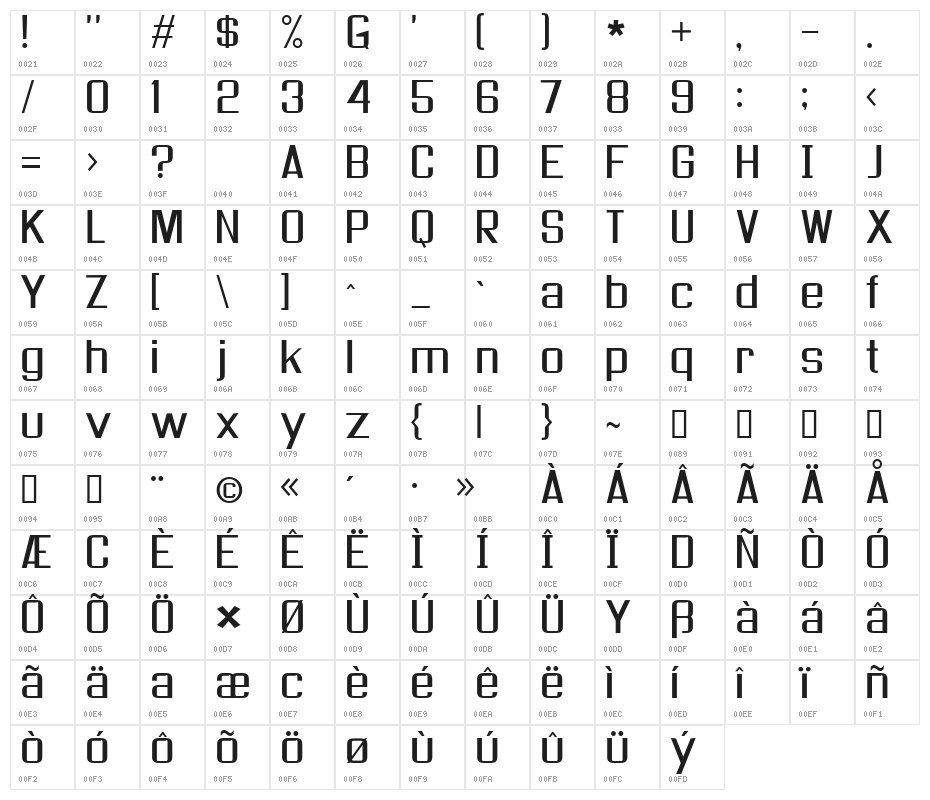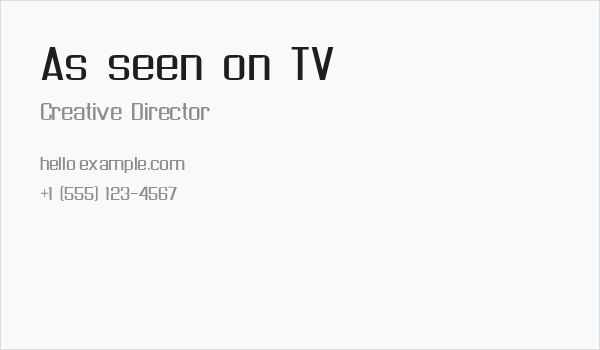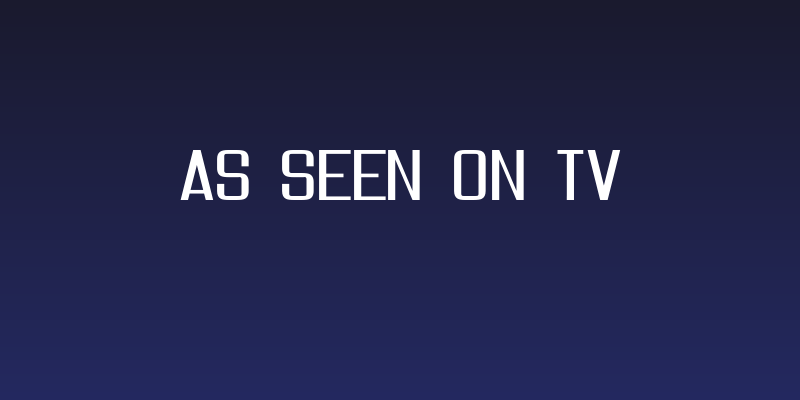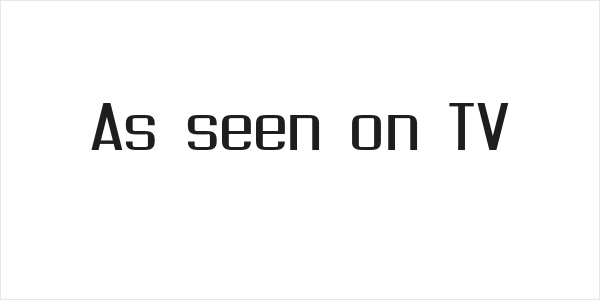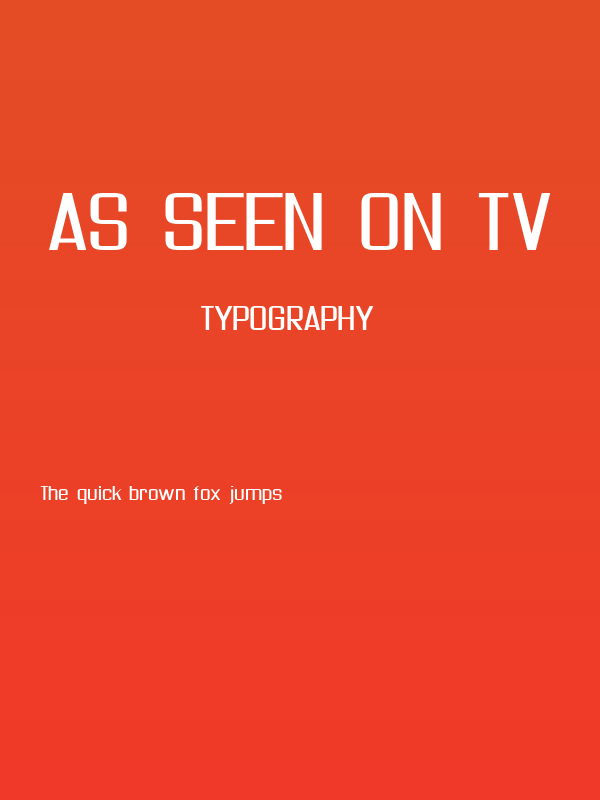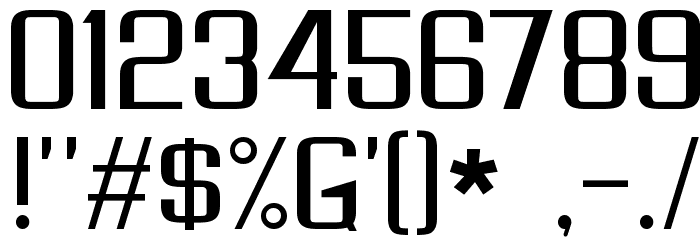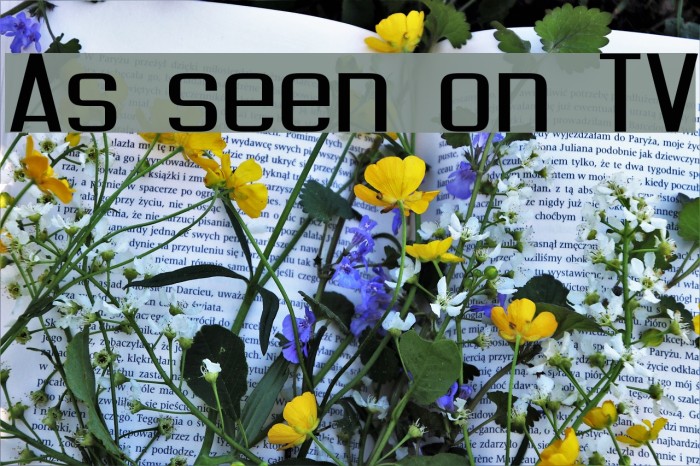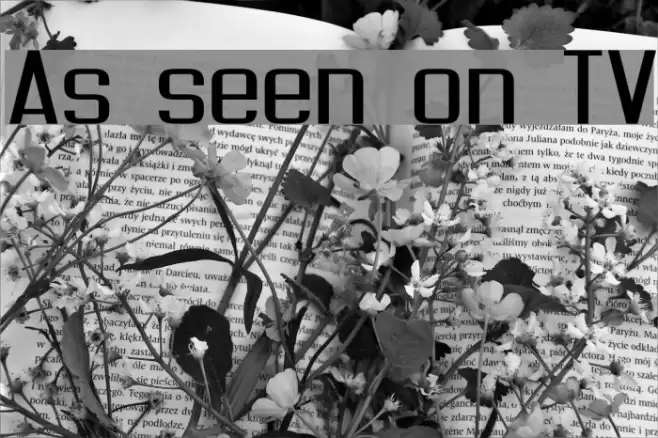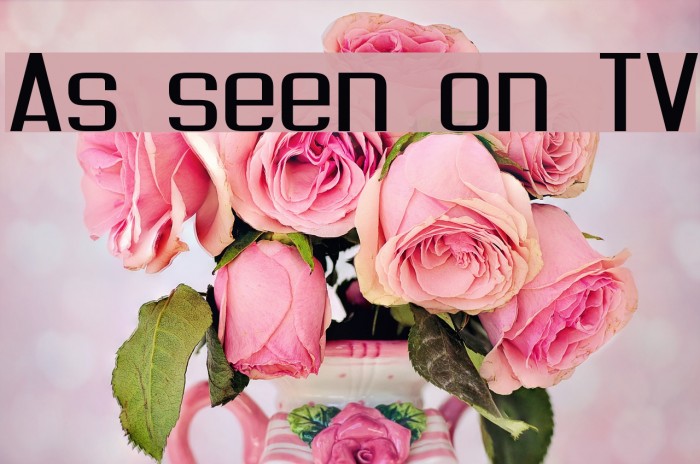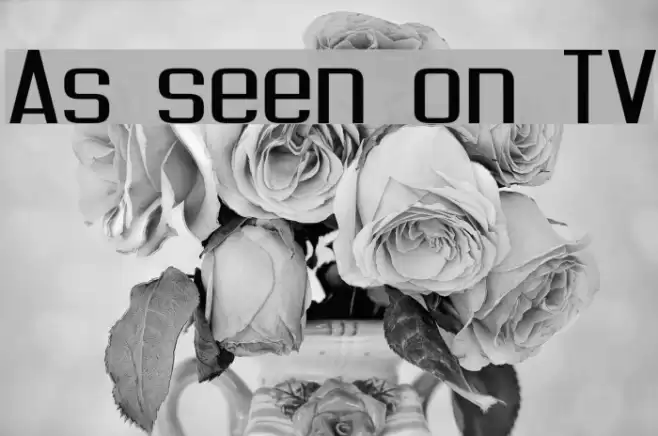
As seen on TV Font
As seen on TV Description
This font features a modern and sleek design with clean lines and a geometric structure. The uppercase letters are bold and impactful, while the lowercase letters maintain a consistent style with slightly rounded edges. The numerals are clear and easy to read, making them suitable for various applications. Special characters are well-defined, adding versatility to the font. The overall appearance is professional and contemporary, making it ideal for use in branding, advertising, and digital media.
| Use Case | Headlines, Logos, Branding |
| Proposed Projects | Ideal for branding, advertising, digital media, and modern web design projects. |